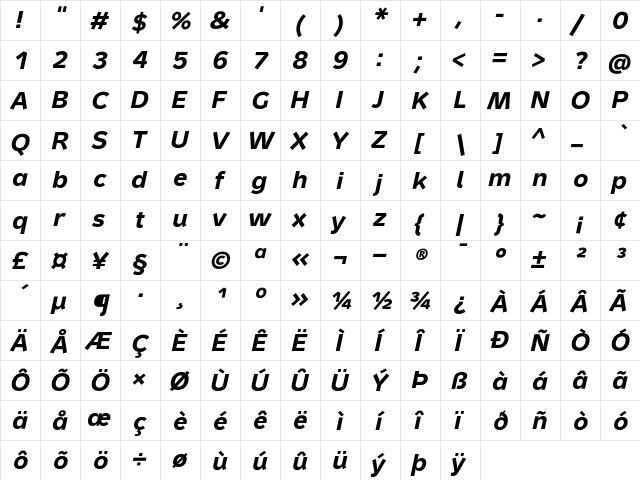
Metron Text Pro Bold Italic Font Preview
| Foundry | Rathousky, Storm & Pistora |
| Designer | Jiri Rathousky, Frantisek Storm, Marek Pistora |
Design Context for Metron Text Pro Typeface
Metron Text Pro takes a measured approach to typography — its balanced proportions and neutral character make it a reliable workhorse for both digital and print work. The dynamic lean of this cut emphasises speed and emphasis in any layout. Its bold stroke weight gives it real presence on the page.
Pro Tip: Try Metron Text Pro for annotation and caption copy alongside an upright companion — the contrast in angle creates a dynamic but ordered typographic system.